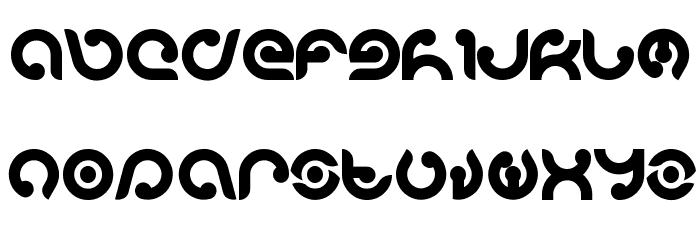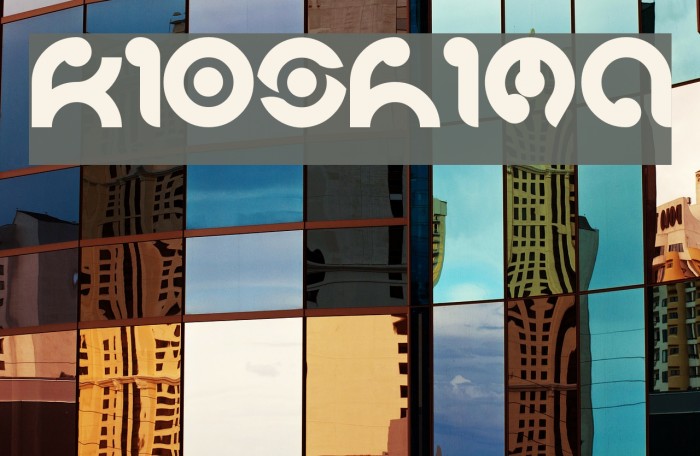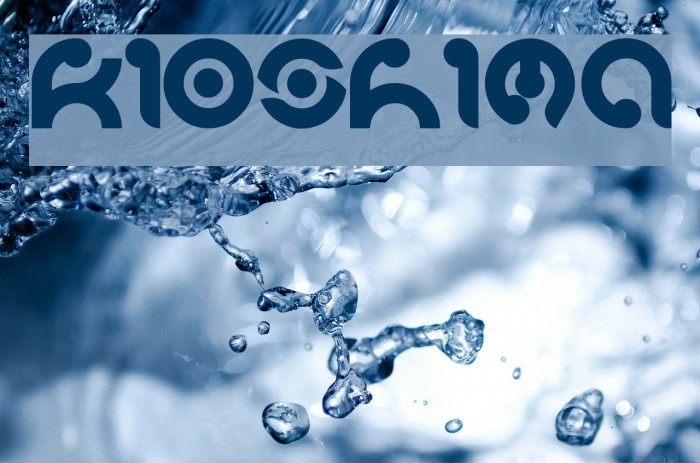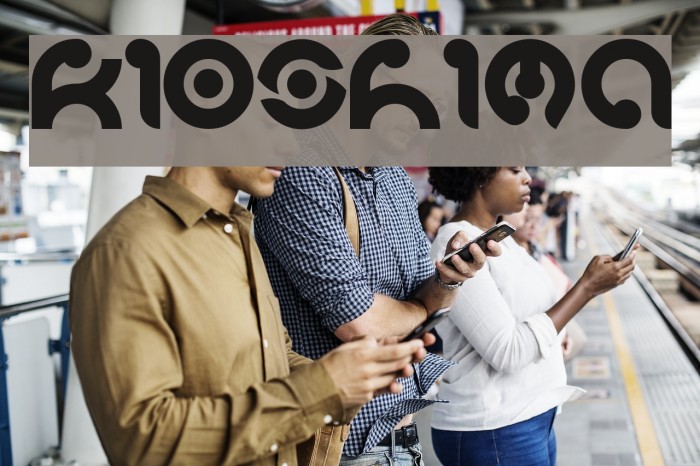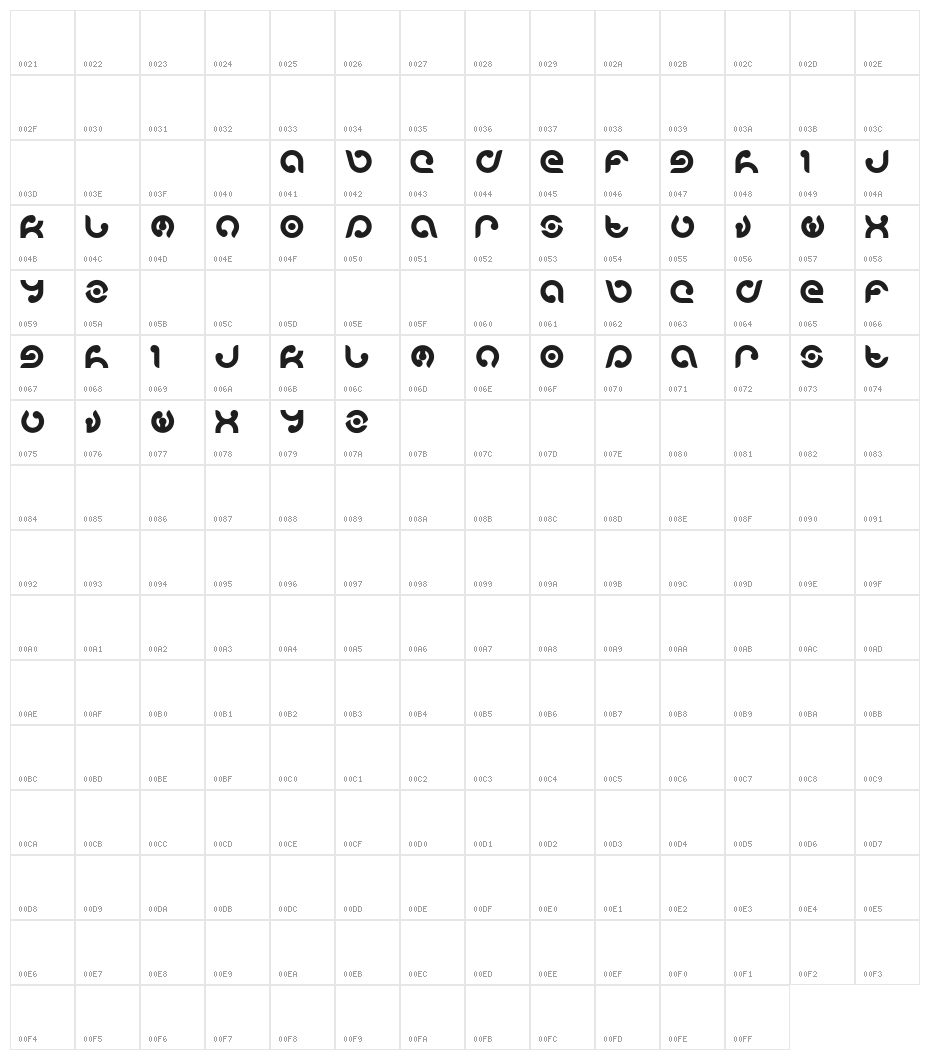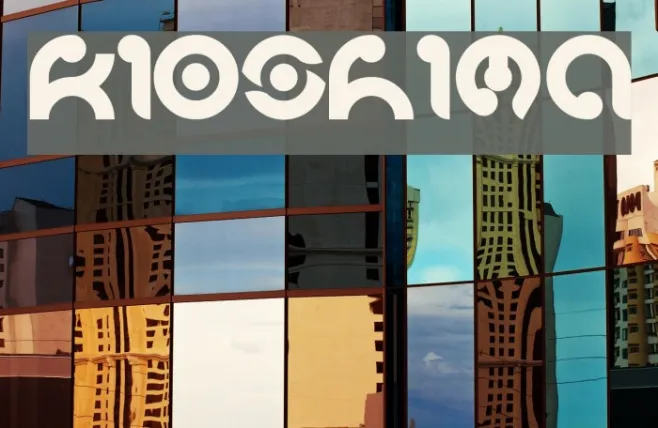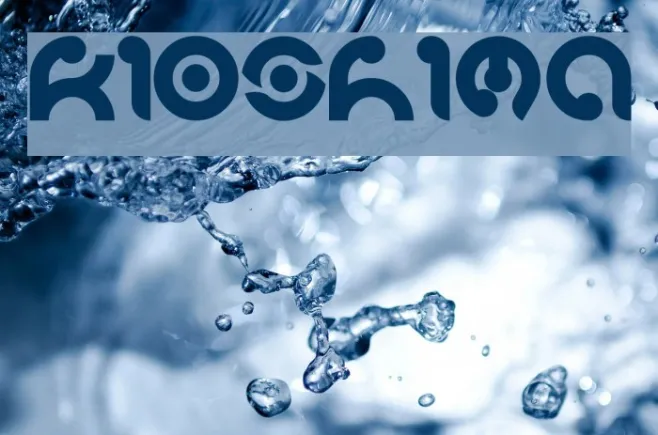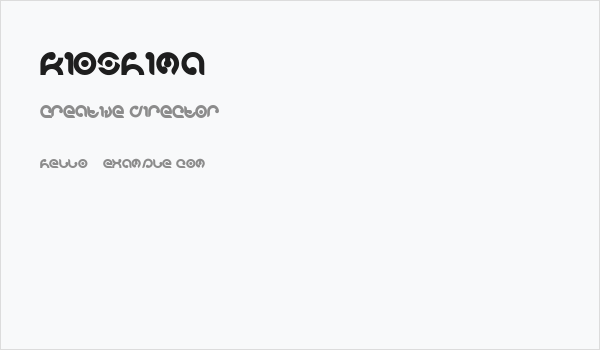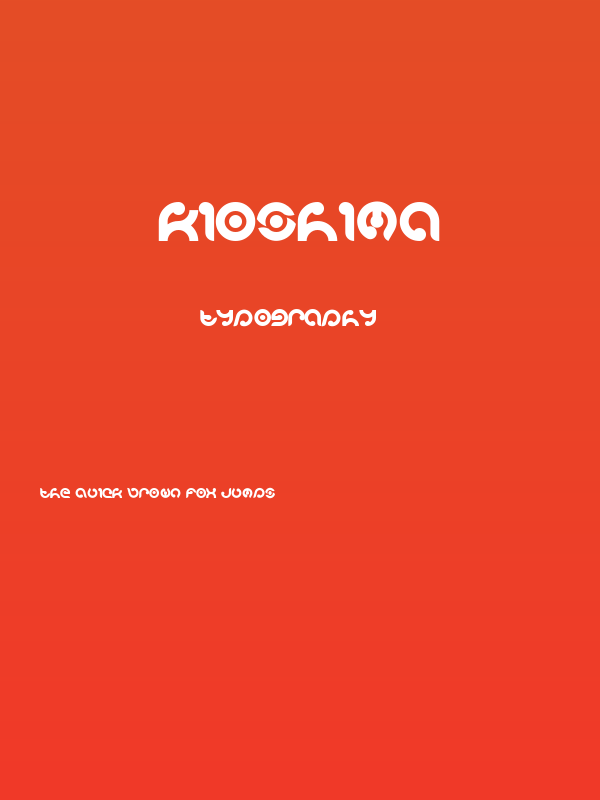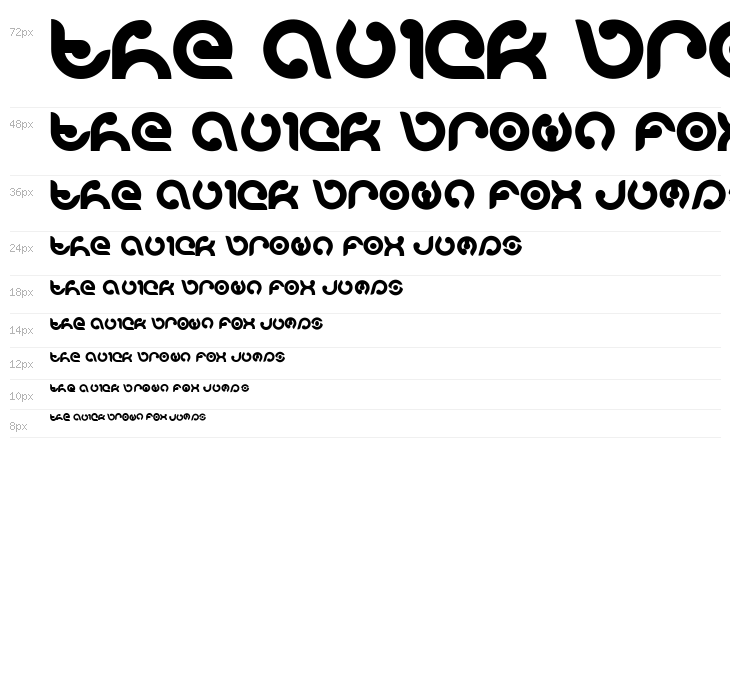
kioshima Font
This font features a unique and futuristic design with bold, rounded shapes that create a sense of movement and fluidity. The characters are constructed with thick strokes and have a distinct geometric style, making them stand out with a modern and innovative appearance. The font's design is consistent across both uppercase and lowercase letters, maintaining a cohesive look. Its boldness and distinctiveness make it suitable for creative and artistic projects that require a strong visual impact.
A bold, futuristic font with rounded, geometric shapes.
- Proposed Projects: Ideal for sci-fi themed designs, modern branding, posters, and digital artwork.
- Overall Style: Futuristic